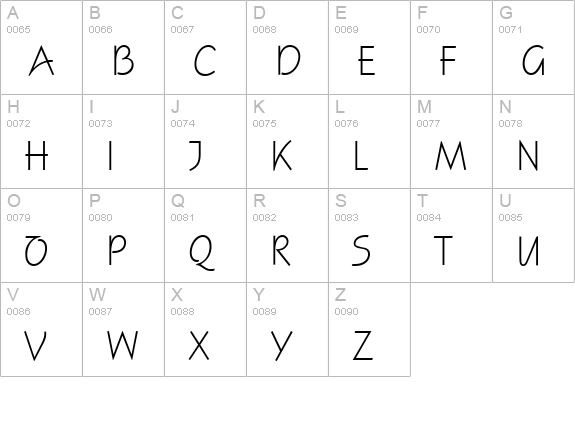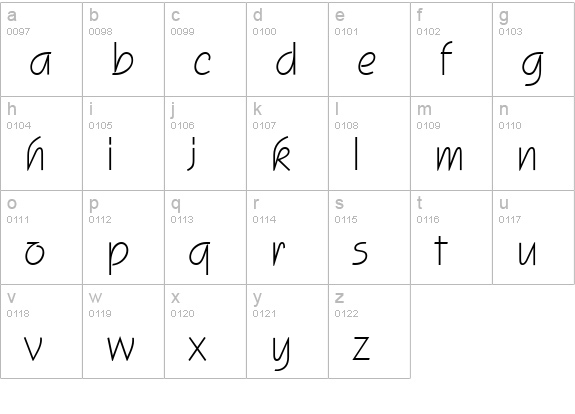
Status-Regular Font Details
Status-Regular is the standard, neutral variant in the Status typeface family \xE2\x80\x94 well suited to general body text, paragraphs, and standard typographic work.
Status-Regular font is a versatile and modern typeface that exudes professionalism and clarity. With its clean lines and balanced proportions, this font is perfect for a wide range of design projects, from branding to editorial layouts. Its timeless design ensures that your text will always look crisp and easy to read. The best part? Status-Regular is completely free to download at FontsMarket.com. Whether you're a designer looking to enhance your projects or a business owner seeking a polished look for your brand, this font is a valuable addition to your toolkit. Don't miss out on the opportunity to elevate your designs with this elegant and sophisticated font - download Status-Regular today!